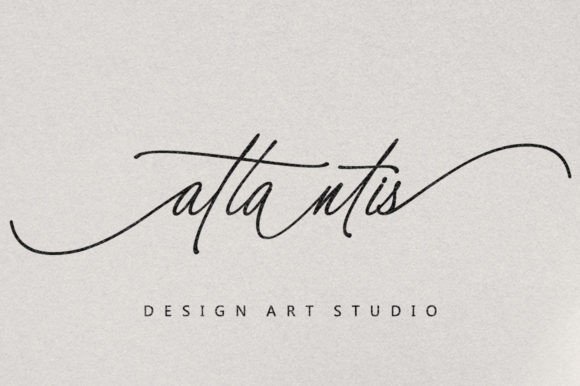
Artistic Signature Font
Artistic Signature is a luxurious script font with an artistic flair. Its elegant and flowing curves evoke a sense of sophistication and class. With its unique hand-drawn style and varying stroke widths, this font is perfect for branding, invitations, and other high-end designs.